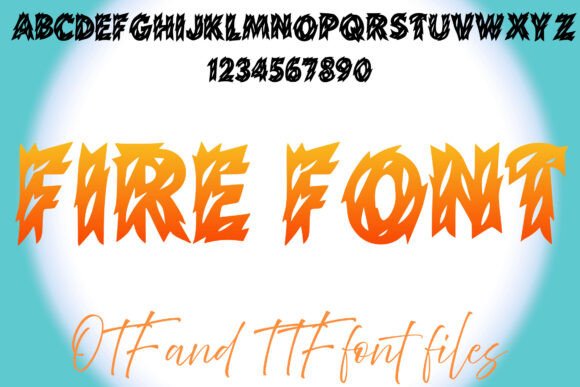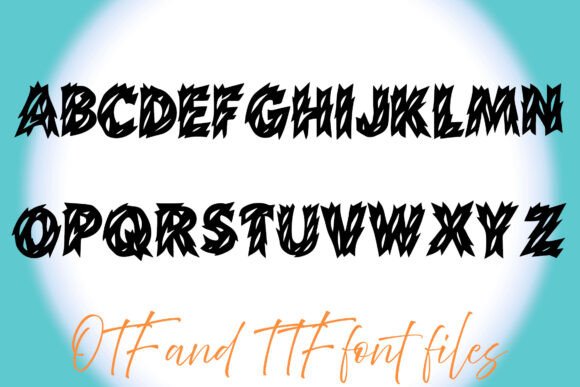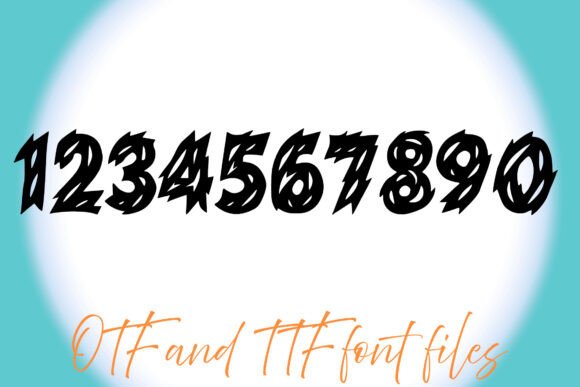
Fire Font
About the Fire Font
The Fire Font offers a perfect balance of form and function for your design needs. Fire Font brings the heat with its blazing flame-inspired letterforms! This fiery display typeface is designed to grab attention and ignite your designs. Perfect for gaming graphics, poster art, Halloween invites, extreme sports branding, and anything that needs a powerful, high-energy touch. Available in OTF and TTF formats, it’s your go-to font when you want to turn up the visual drama.
Fire Font’s aggressive, high-contrast forms excel in large-scale applications such as headlines, posters, and logos where immediate impact is crucial. It’s ideal for brands projecting power, energy, or a rebellious spirit—think extreme sports, gaming, or music festivals. However, its low x-height and bold strokes make it unsuitable for body text or UI elements requiring high readability.
Pairing Fire Font effectively requires a contrasting typeface to balance its intensity. A clean sans-serif like Futura or a geometric sans-serif like Bebas Neue would provide a strong visual counterpoint, creating a dynamic and memorable combination. For a slightly softer contrast, consider a neutral serif like Garamond or a more modern serif like Playfair Display.
Its core personality is bold and aggressive, conveying power and excitement. Avoid pairing it with delicate scripts or overly ornate fonts, as this would clash with its assertive character.